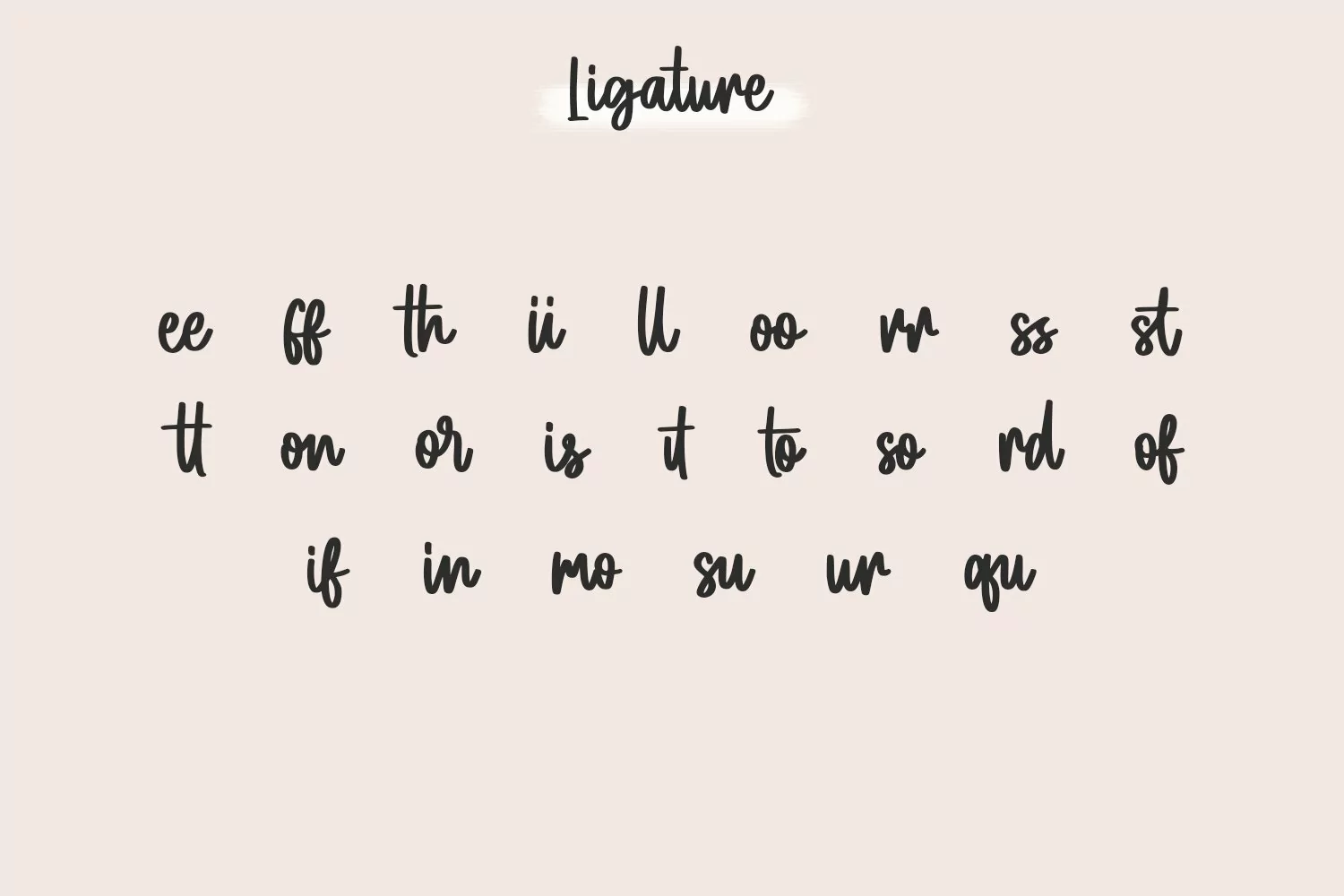
Joylady is a fancy handwritten script font. With bold contrast stroke, fun character with a bit of ligatures and alternates. To give you an extra creative work. Joylady r font support multilingual more than 100+ language. This font is good for logo design, Social media, Movie Titles, Books Titles, a short text even a long text letter and good for your secondary text font with sans or serif. Make a stunning work with Joylady font.